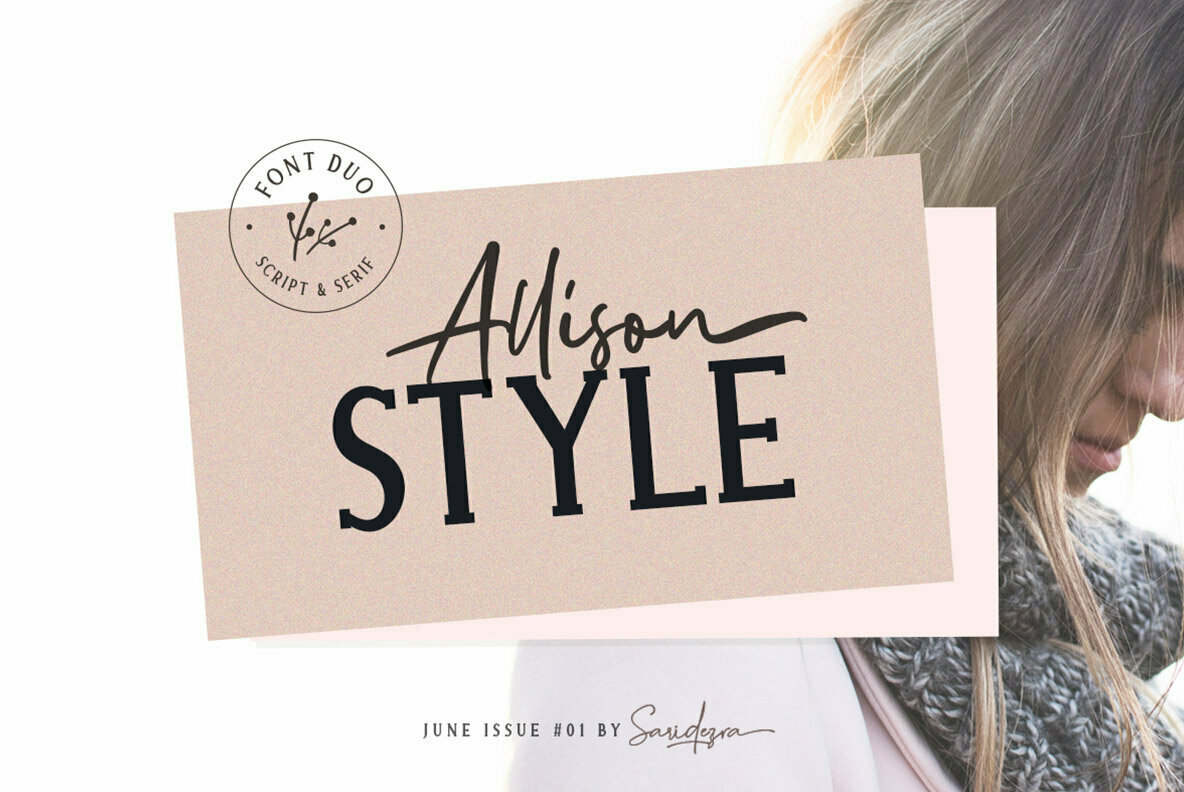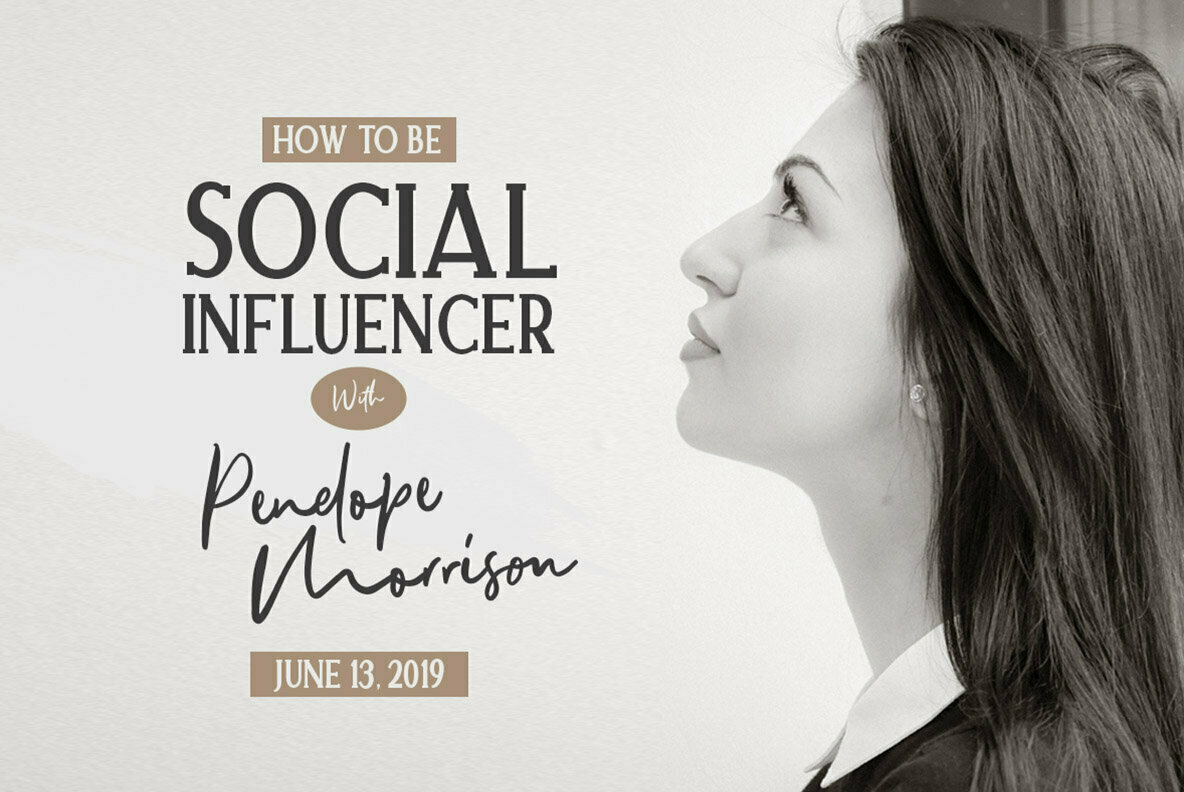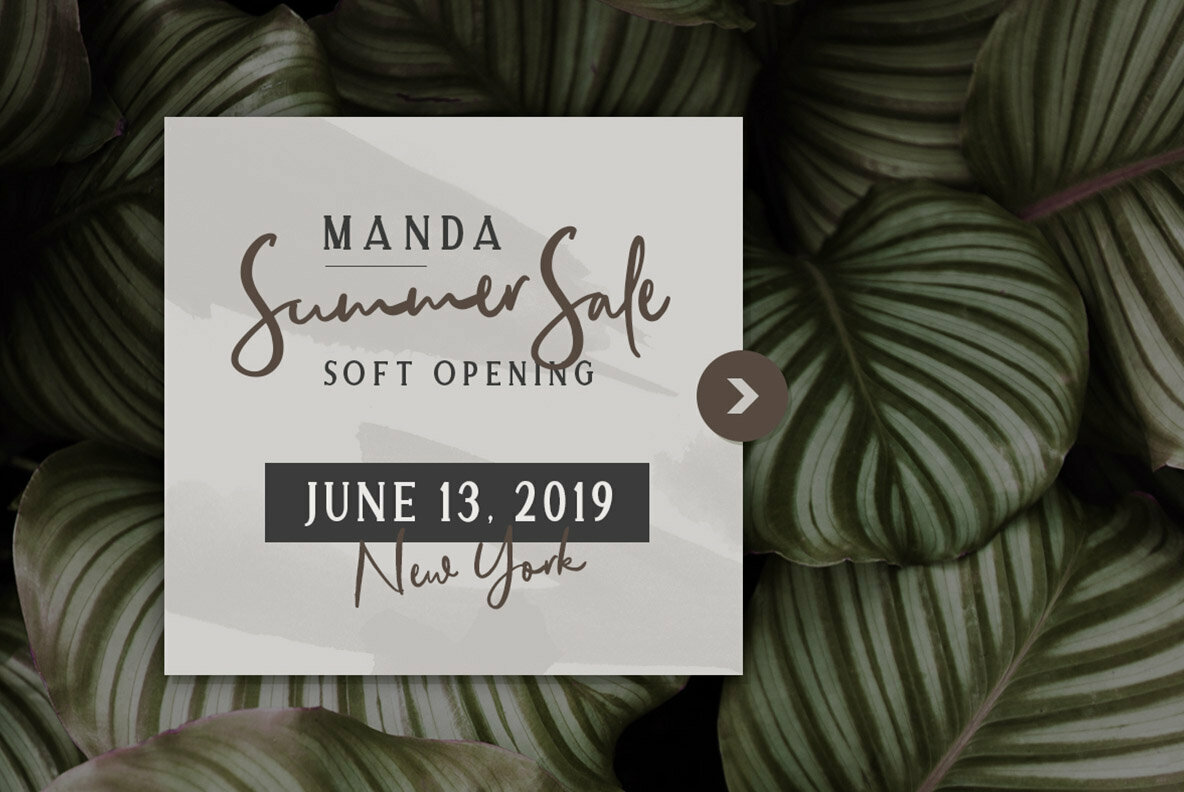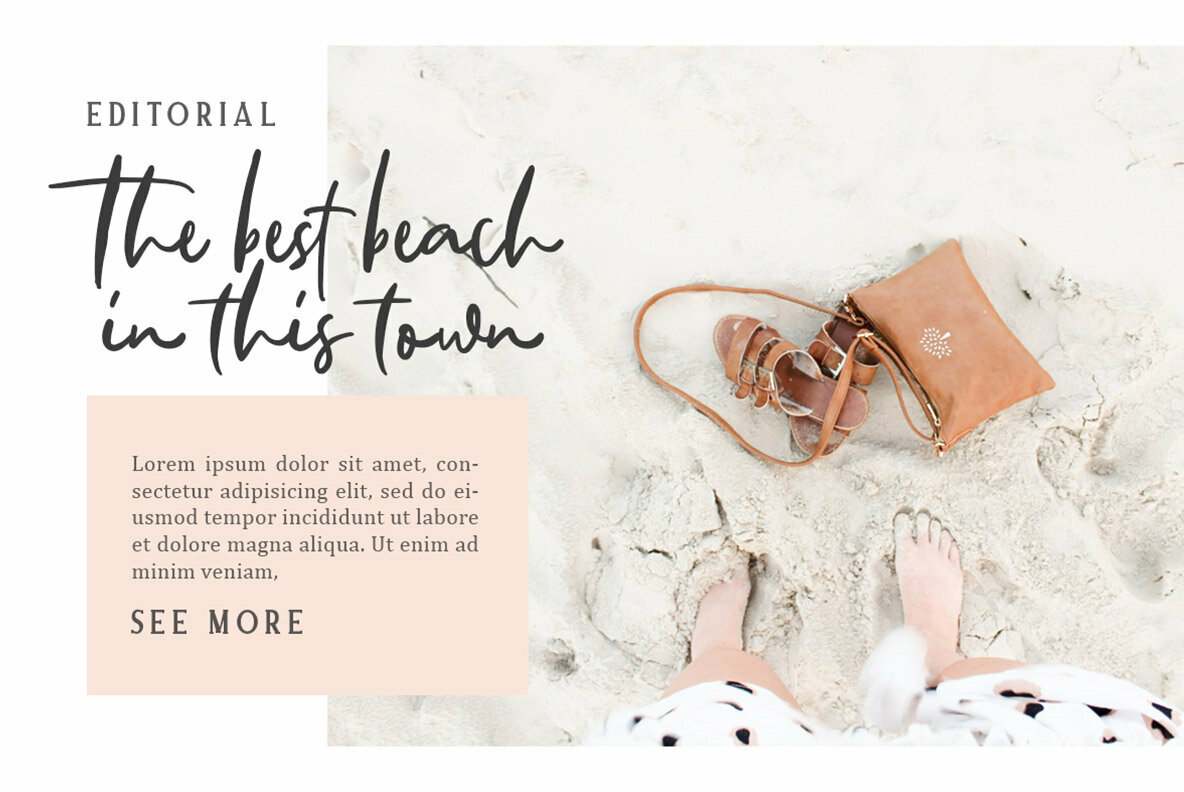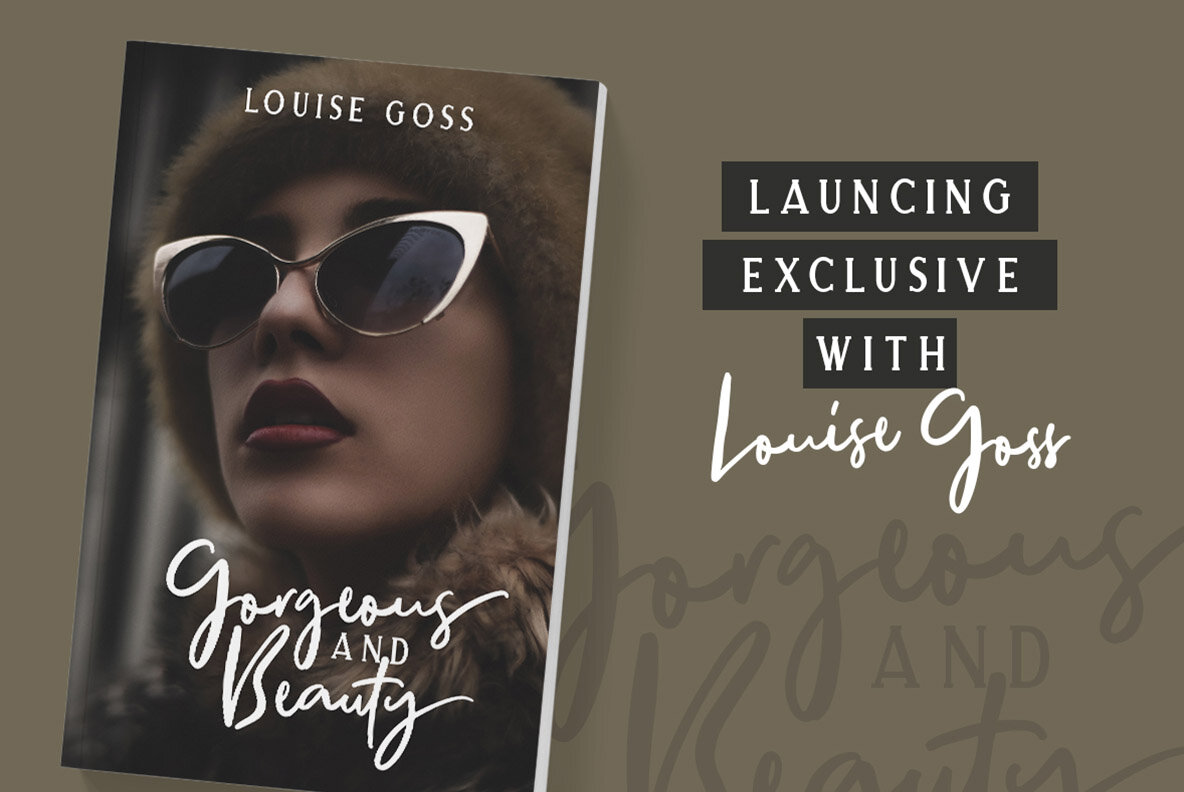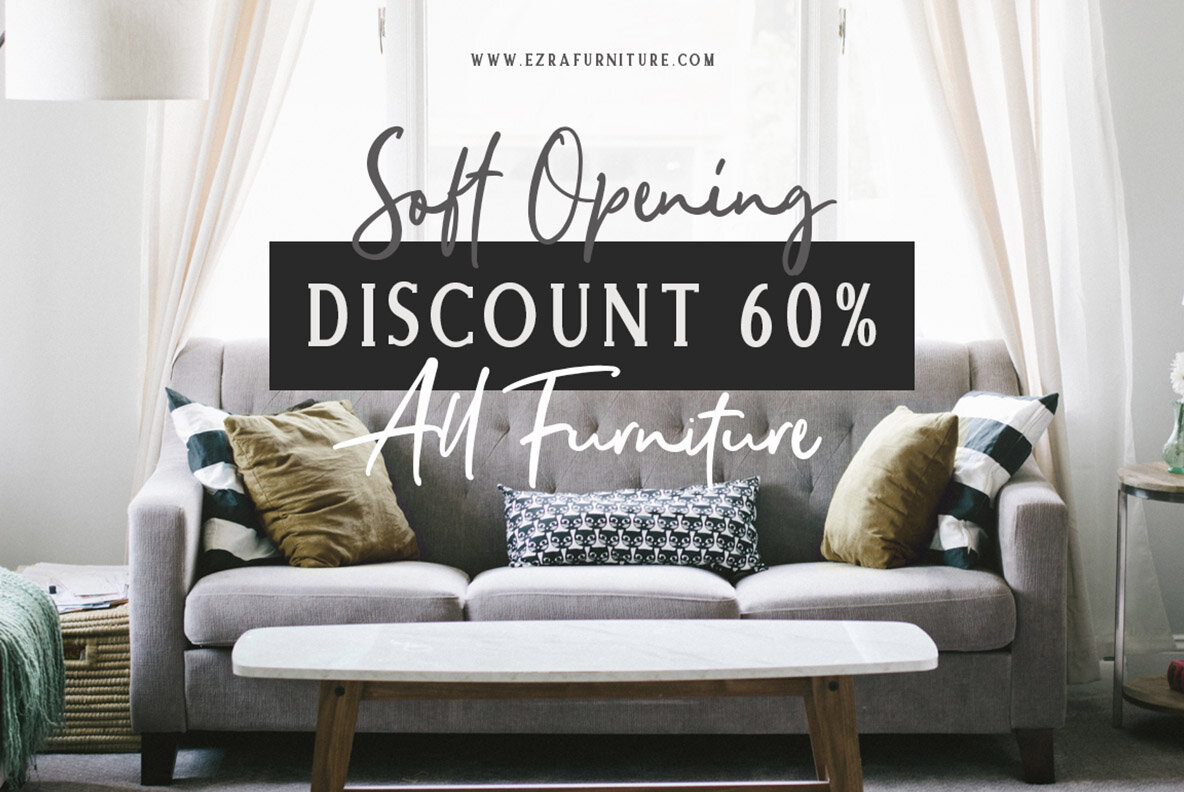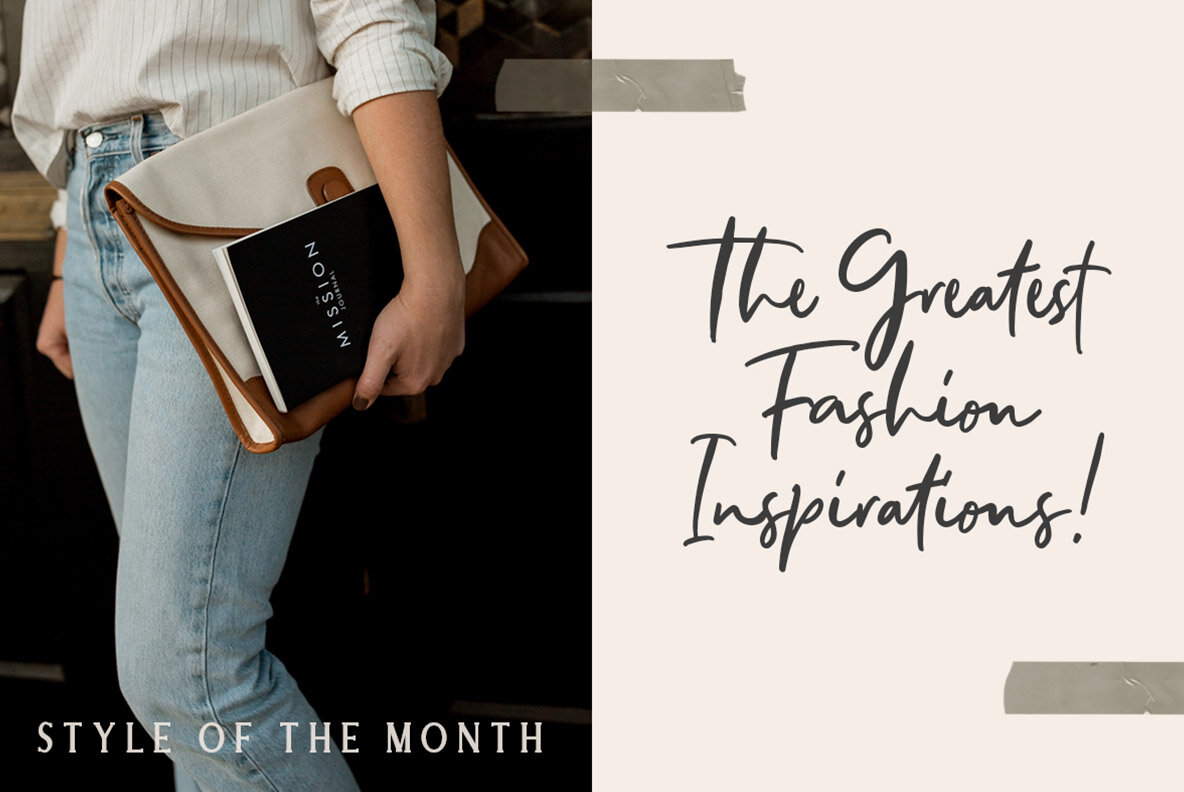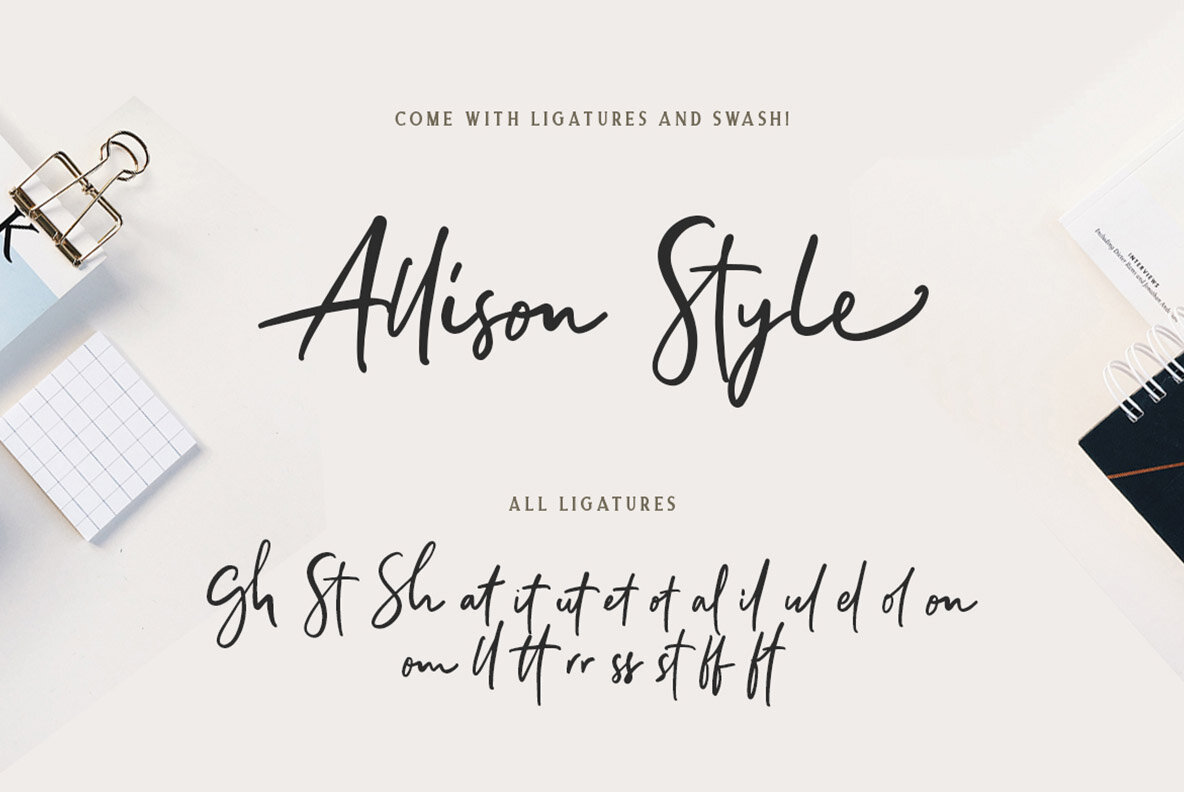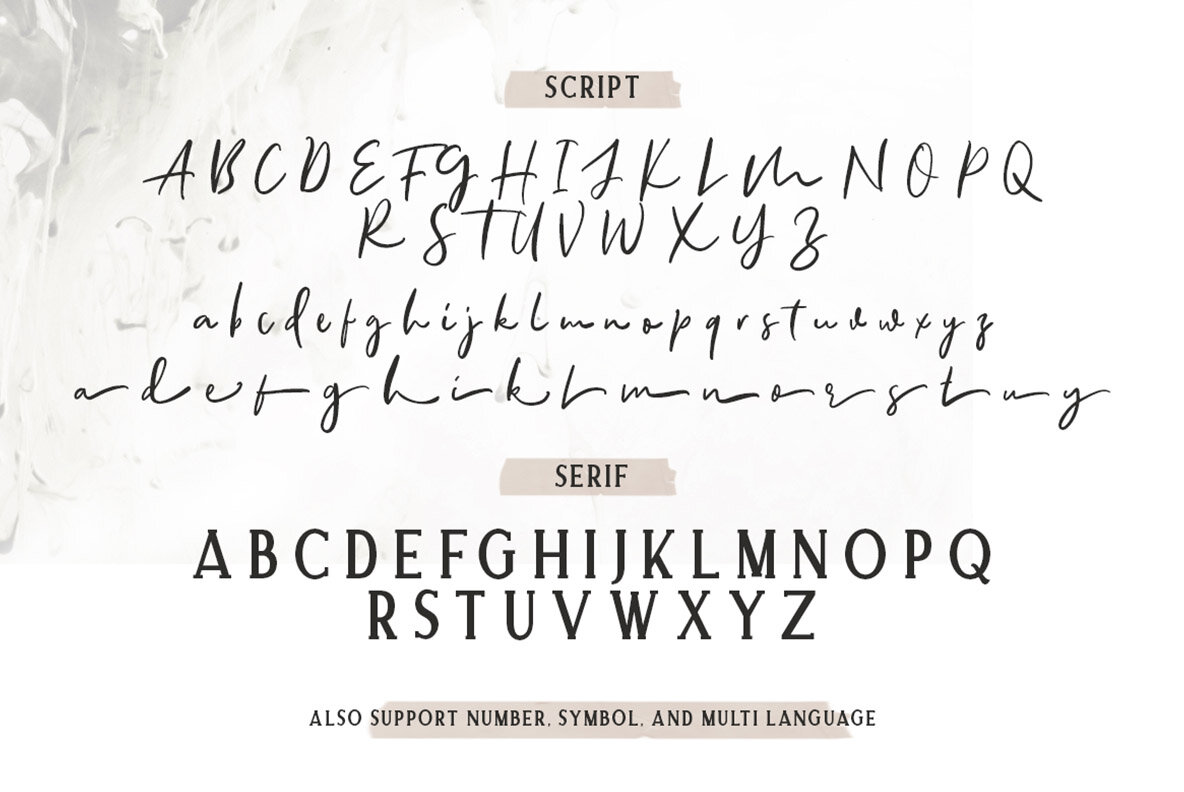
Allison Style Font Duo: Delicate Serif & Freehand Script Blend
The Allison Style Font Duo introduces a refined pairing of a delicate serif and a freehand writing script, designed to enhance your digital creations with elegance and flair. This versatile combination supports a wide array of languages, includes numbers and symbols, and is equipped with end swashes and numerous ligatures for added visual appeal.
• Multilingual support
• Includes numbers and symbols
• End swash options
• Numerous ligatures